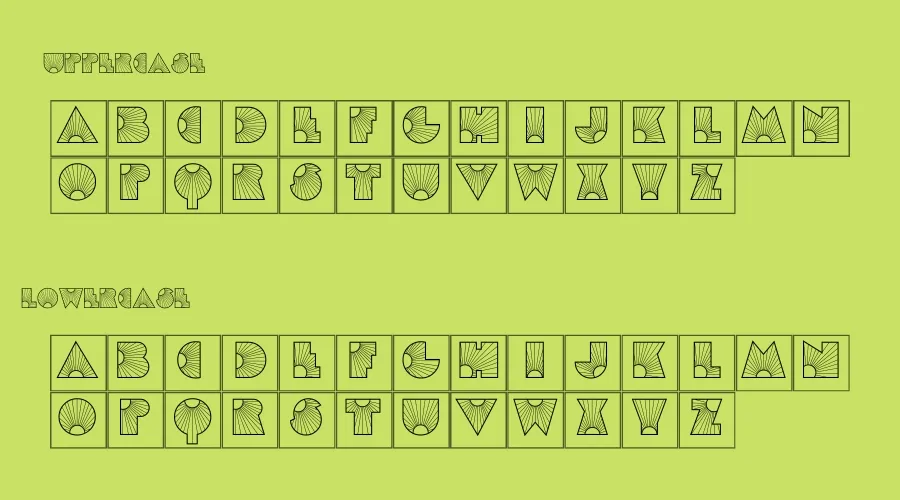
ML Sunglow KK Font
About ML Sunglow KK Font
In this post, we are going to share with you about a fancy texture family, that is known as the name of ML Sunglow KK Font. This font was developed by an American typographic designer koeiekat with a good-looking and eye-catching texture look.